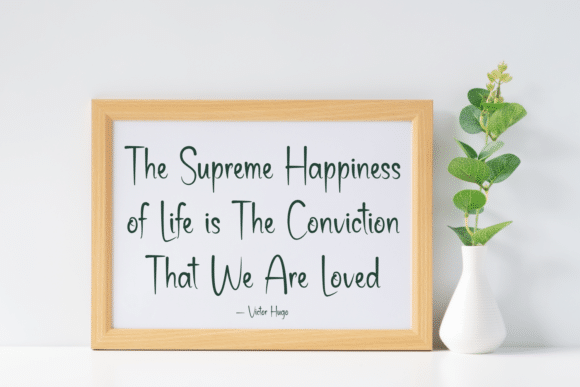
Best Week Font
Best Week is a lovely, casual, and relaxed script font. It looks wonderful on wedding invitations, thank you cards, quotes, greeting cards, logos, business cards, and every other design which needs a customized touch.